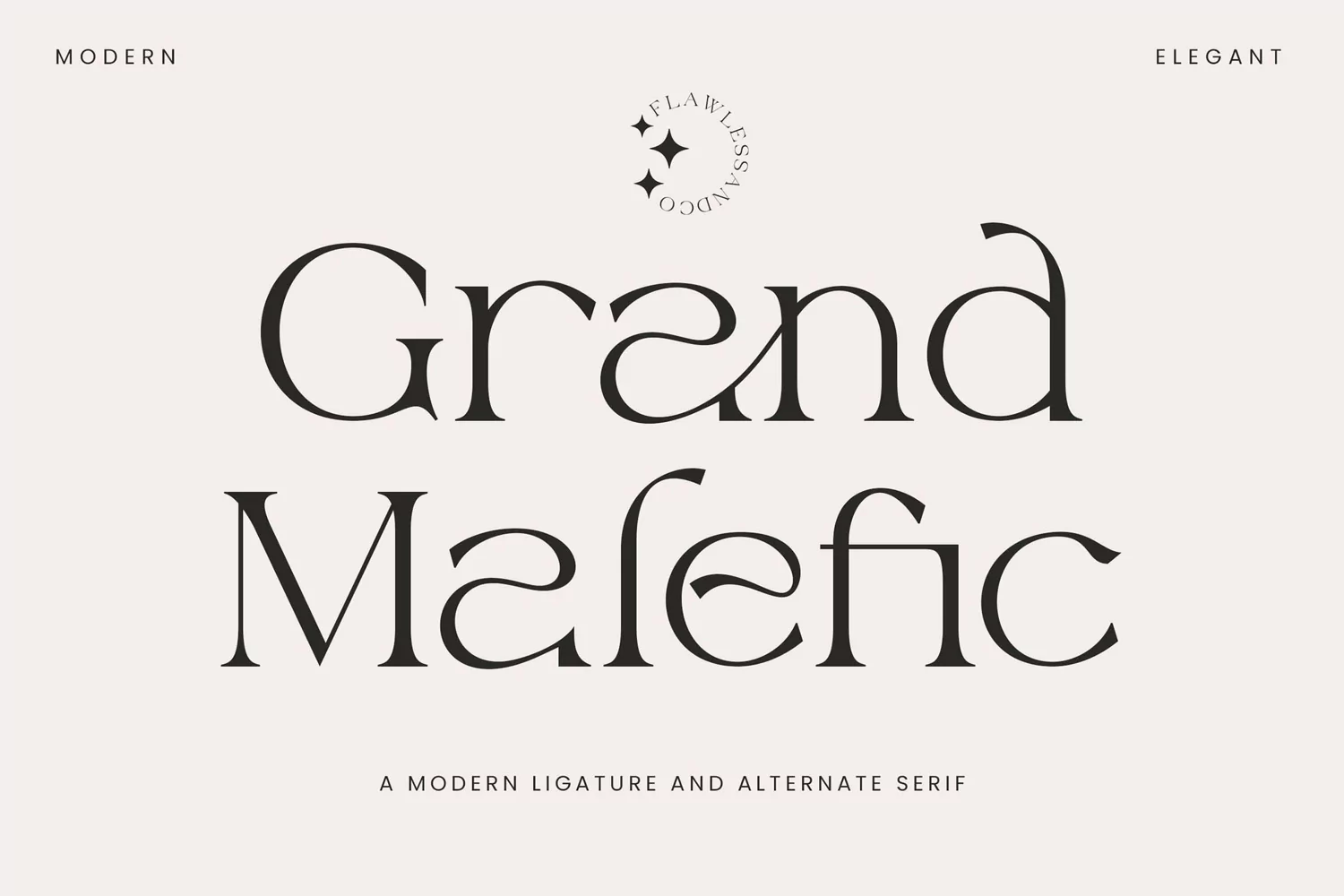
Grand Malefic
Grand Malefic is a Modern Serif Font with a classy and unique style in each character, so it's fitted for some wedding invitation display.
There's some connected letters and some alternates that suitable for any graphic designs such as branding materials, t-shirt, print, business cards, logo, poster, t-shirt, photography, quotes .etc
This font support for some multilingual. Also contains uppercase A-Z and lowercase a-z, alternate character, numbers 0-9, and some punctuation.